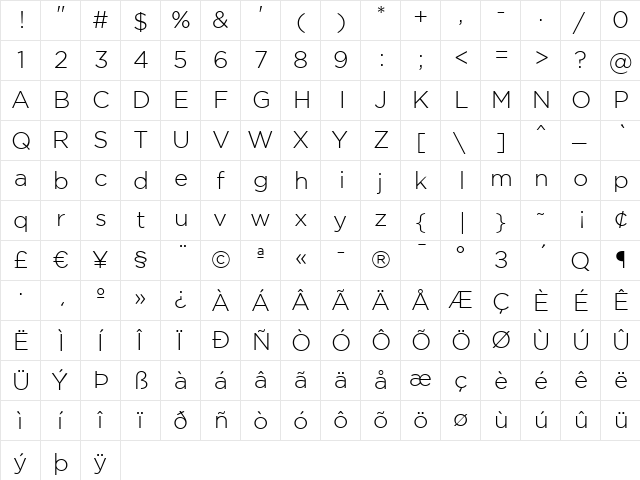
Gotham Light Regular
Design Context for Gotham Light Typeface
Gotham Light is a composed and adaptable typeface that performs quietly and consistently across a wide range of design contexts. The delicate stroke weight brings airiness and refinement to layouts.
Pro Tip: Pair Gotham Light with a font of contrasting weight or personality to build a more expressive typographic hierarchy.